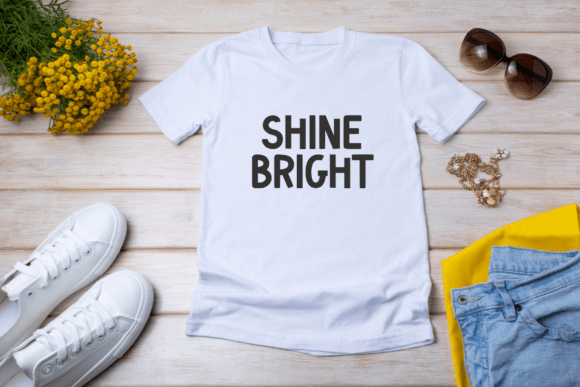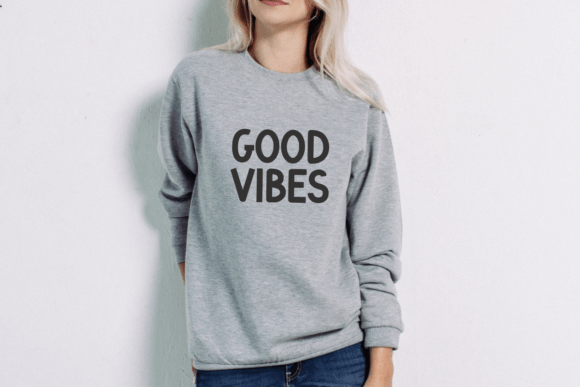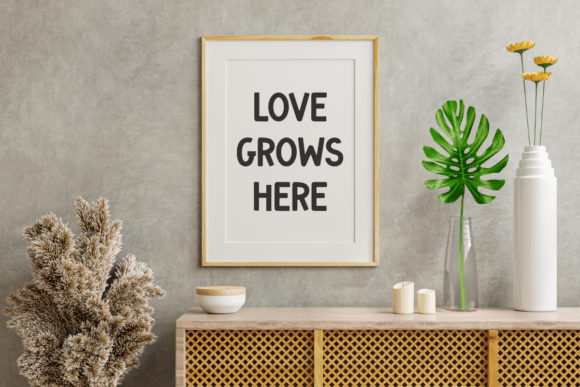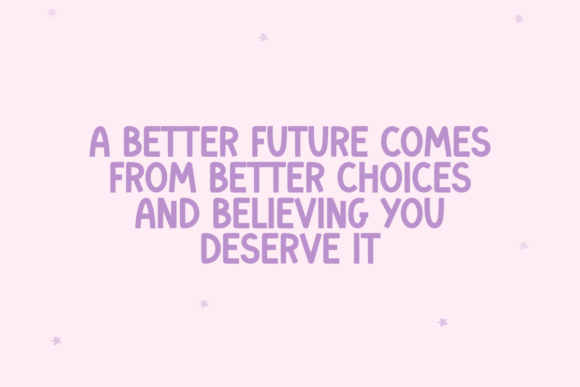
Introducing Goals Trackers Font: The Perfect Sassy and Sarcastic Handwritten Font for Creative Projects
Are you tired of using the same old fonts for your creative projects? Do you want to add a touch of sass and personality to your designs? Look no further than the Goals Trackers Font! This handwritten font is inspired by natural handwriting and features a rounded and friendly look that’s perfect for a variety of projects.
What is Goals Trackers Font?
Goals Trackers Font is a unique and playful font that’s designed to add a touch of whimsy to your designs. With its sassy and sarcastic tone, this font is perfect for designers and crafters who want to create fun and eye-catching projects. The font is inspired by natural handwriting, giving it a personal and relatable feel that’s sure to resonate with your audience.
Perfect for Journals, Planners, and Notes
One of the best things about Goals Trackers Font is its versatility. It’s perfect for use in journals, planners, and notes, adding a personal touch to your writing and designs. The font’s rounded and friendly look makes it easy to read and fun to use, making it perfect for anyone who loves to write or create.
KDP Interiors and Canva Templates
Goals Trackers Font is also a great choice for KDP interiors and Canva templates. The font’s playful and eye-catching design makes it perfect for creating engaging and interactive designs that will stand out from the crowd. Whether you’re creating a journal, planner, or social media graphic, this font is sure to add a touch of personality to your design.
Birthday and Baby Shower Designs
But Goals Trackers Font isn’t just limited to journals and planners. It’s also perfect for birthday and baby shower designs, adding a touch of fun and whimsy to your cards, invitations, and decorations. The font’s sassy and sarcastic tone makes it perfect for creating playful and eye-catching designs that will delight your friends and family.
Greeting Cards, Stickers, and Diaries
Goals Trackers Font is also a great choice for greeting cards, stickers, and diaries. The font’s playful and eye-catching design makes it perfect for creating fun and personalized designs that will stand out from the crowd. Whether you’re creating a birthday card, a sticker, or a diary entry, this font is sure to add a touch of personality to your design.
Tumblers, Sublimation Projects, and DIY Crafts
But Goals Trackers Font isn’t just limited to digital designs. It’s also perfect for use in tumblers, sublimation projects, and DIY crafts. The font’s playful and eye-catching design makes it perfect for creating fun and personalized items that will make great gifts or decorations.
Why Choose Goals Trackers Font?
So why choose Goals Trackers Font for your next project? Here are just a few reasons why this font stands out:
- Unique and playful design: Goals Trackers Font features a unique and playful design that’s sure to add a touch of personality to your projects.
- Sassy and sarcastic tone: The font’s sassy and sarcastic tone makes it perfect for creating fun and eye-catching designs that will delight your audience.
- Rounded and friendly look: The font’s rounded and friendly look makes it easy to read and fun to use, making it perfect for journals, planners, and notes.
- Versatile: Goals Trackers Font is perfect for a variety of projects, from digital designs to DIY crafts.
In conclusion, Goals Trackers Font is the perfect choice for designers and crafters who want to add a touch of sass and personality to their projects. With its unique and playful design, sassy and sarcastic tone, and rounded and friendly look, this font is perfect for a variety of projects, from journals and planners to birthday and baby shower designs. So why wait? Download Goals Trackers Font today and start creating fun and eye-catching designs that will stand out from the crowd!